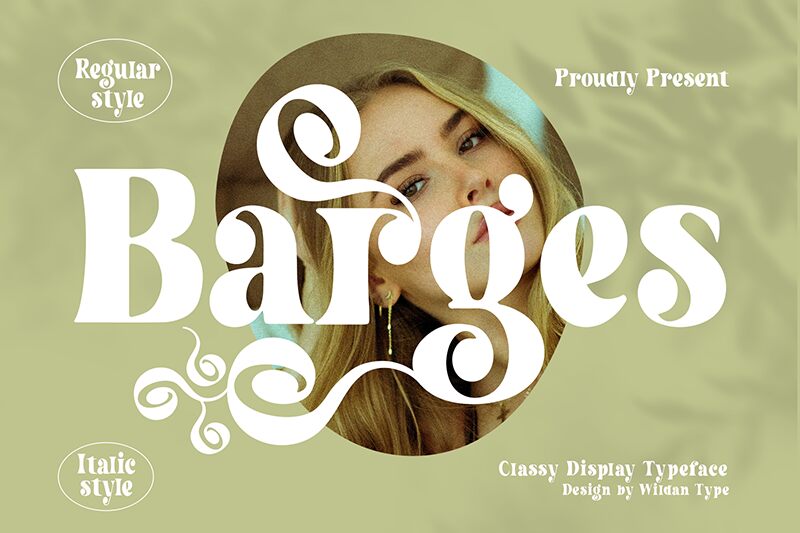
Barges is the groovy display font designed by Wildan Suprian Syah that will take your designs to the next level. With its extra-bold weight, this font is perfect for creating eye-catching headlines, posters, and flyers. Its retro-inspired style makes it suitable for vintage and modern projects alike, from branding to album covers. Barges will add a touch of nostalgia to any design project while still keeping it fresh and modern. Let Barges take the spotlight in your next project and watch it come to life with its unique personality!
Barges (Demo)